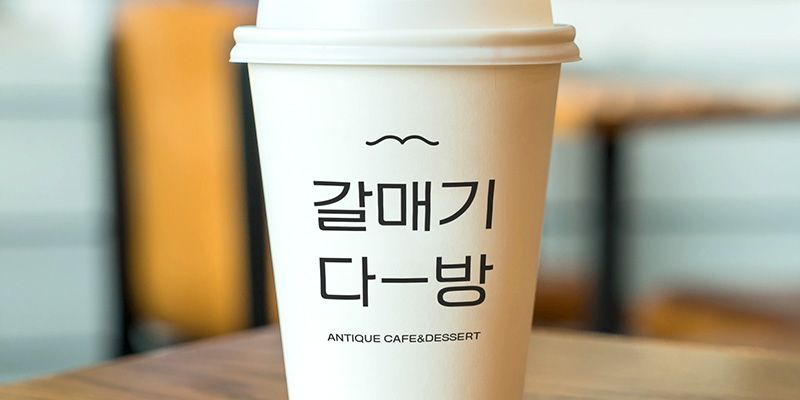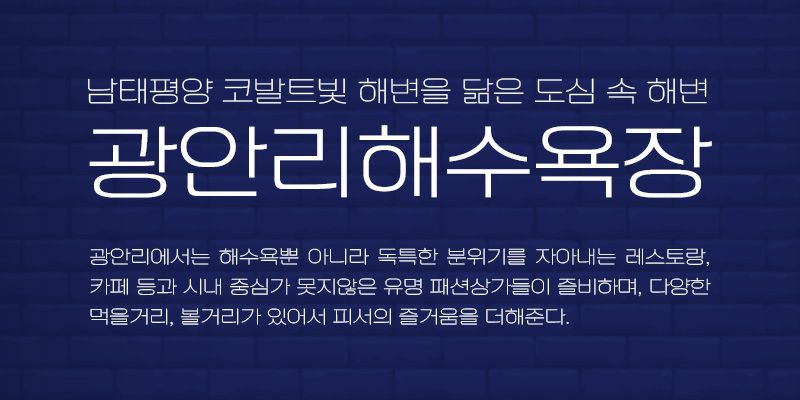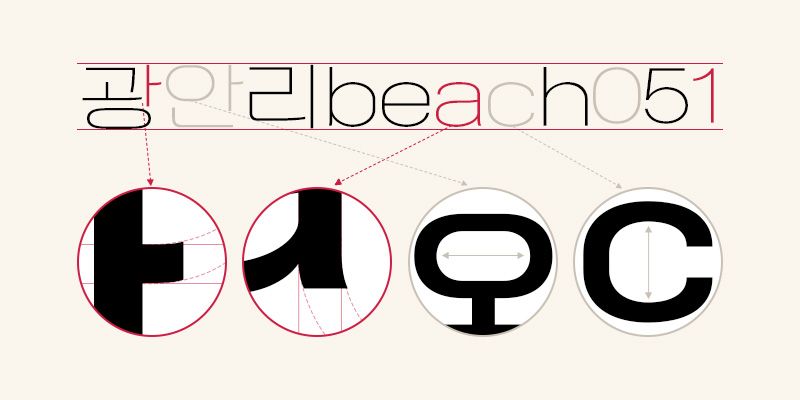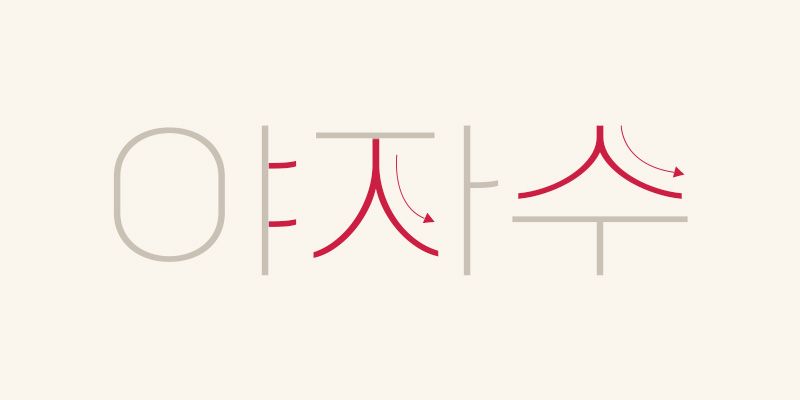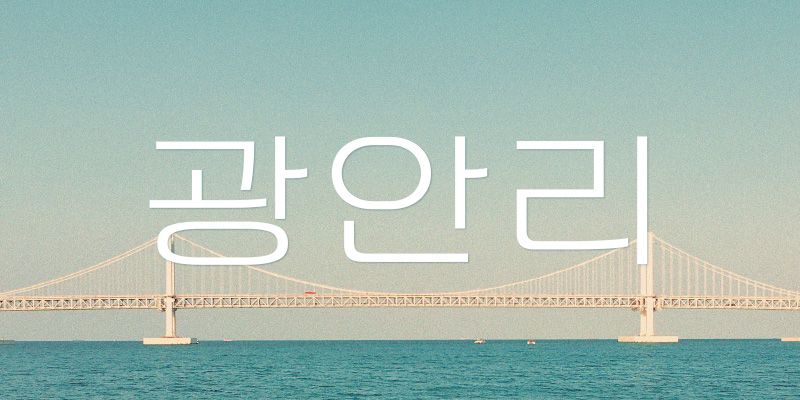
RixGwangalli Thin is a title font based on Gwanggandaegyo Bridge, a grand landmark in Busan that crosses the entirety of Gwangan-ri Beach. It is a title font that harbors an expansive retro feel.
The letters are flat like the calm beach, while the “ㅇ” characters stretch out like the horizon. The soft curves that feel like the cool ocean breeze express the expansive feel of Gwangan-ri Beach.